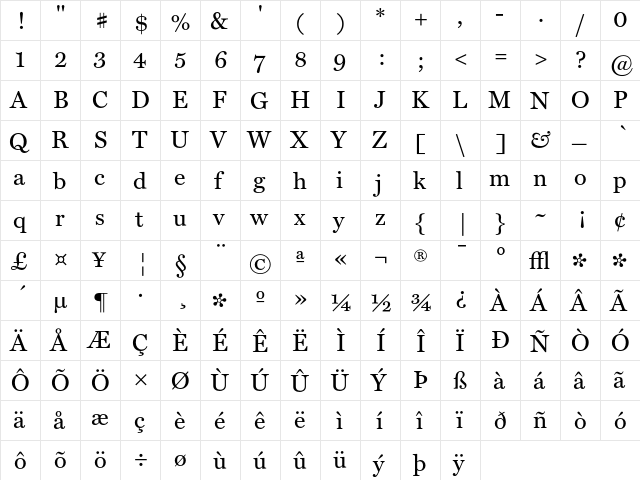
Miller Text
Design Context for Miller Typeface
Miller offers clean, dependable letterforms without strong stylistic allegiance, making it a practical choice for designers who need flexibility.
Pro Tip: Pair Miller with a font of contrasting weight or personality to build a more expressive typographic hierarchy.